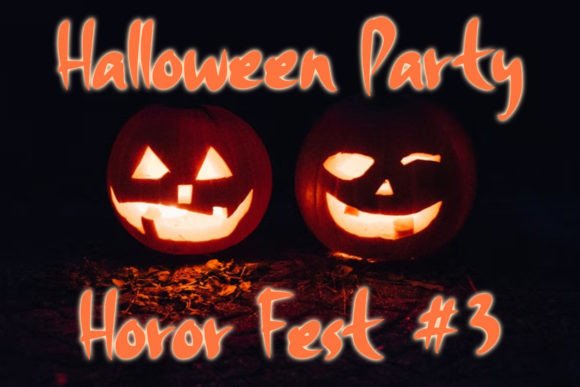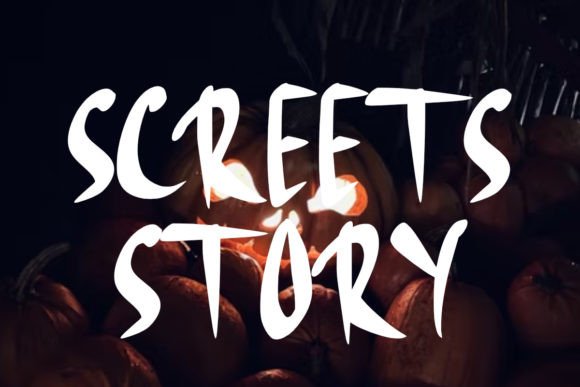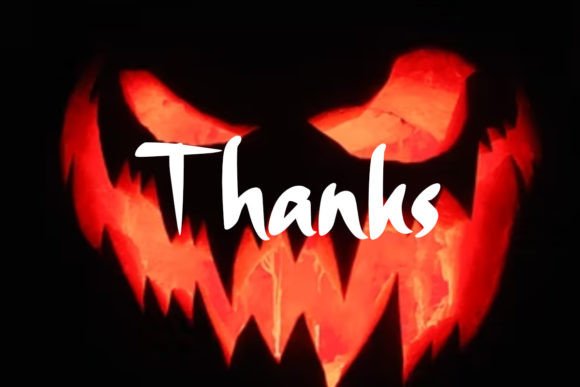
Introduction to Helowine Font
Helowine is a bold and scary display font.
Add this chunky font to your designs and notice how it makes them come alive .